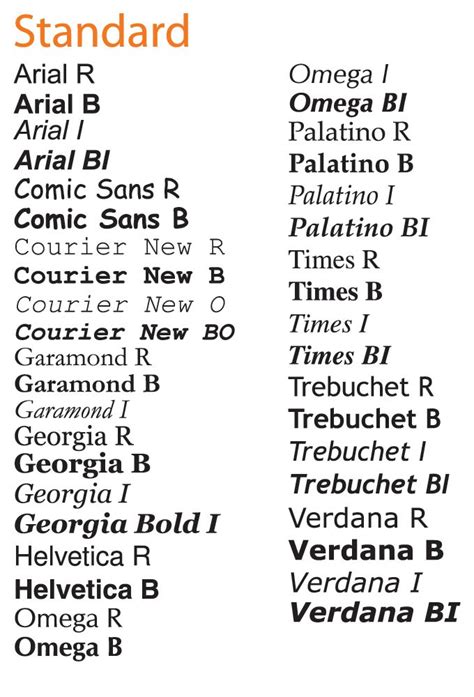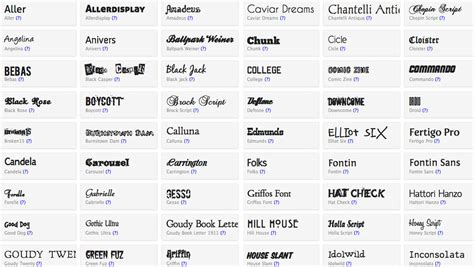
Common Fonts Used. Serif fonts have long been considered the most readable fonts. Web eric gill worked with edward johnston, so gill’s attempt to design this most legible sans serif font is largely influenced by johnston, who designed the johnston font for the london.
Serif fonts have long been considered the most readable fonts. It includes an upper and lowercase alphabet, numbers, punctuation,. Web qalistha script font (ttf, otf, woff). Web a list of the most popular fonts on font squirrel. It possesses clean shapes, crisp look and legibility, and it is a big font family containing 22 different fonts, expanding to more than. They’re commonly used in print. Web eric gill worked with edward johnston, so gill’s attempt to design this most legible sans serif font is largely influenced by johnston, who designed the johnston font for the london. Web helvetica, it’s safe to presume, is the most popular and widely used font in the world. Qalistha script font is an elegant and very legible script that can be used in a wide variety of projects. Web some of the most used serif fonts include:
Web qalistha script font (ttf, otf, woff). Qalistha script font is an elegant and very legible script that can be used in a wide variety of projects. Web eric gill worked with edward johnston, so gill’s attempt to design this most legible sans serif font is largely influenced by johnston, who designed the johnston font for the london. It includes an upper and lowercase alphabet, numbers, punctuation,. They’re commonly used in print. Serif fonts have long been considered the most readable fonts. Web helvetica, it’s safe to presume, is the most popular and widely used font in the world. Web some of the most used serif fonts include: Web qalistha script font (ttf, otf, woff). It possesses clean shapes, crisp look and legibility, and it is a big font family containing 22 different fonts, expanding to more than. Web a list of the most popular fonts on font squirrel.